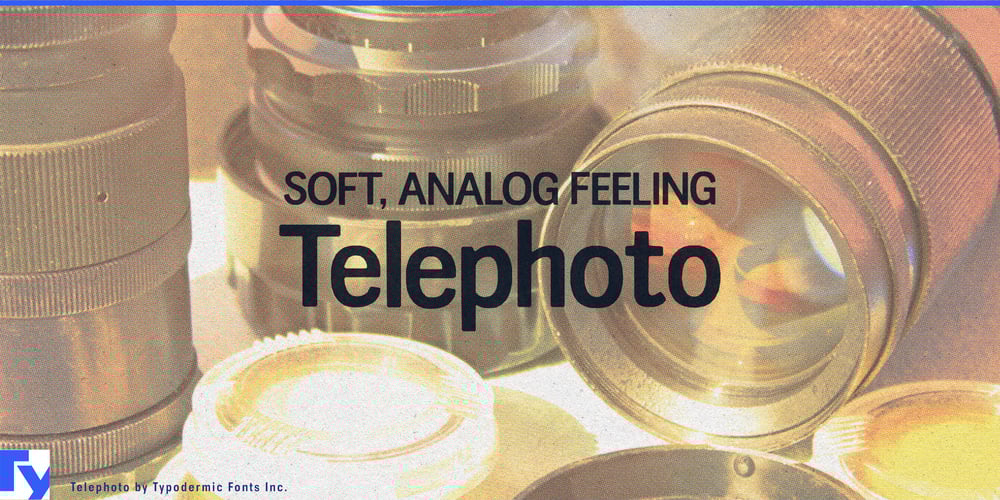
Telephoto Font Family was designed by Ray Larabie and published by Typodermic. Telephoto contains 1 styles and family package options. Capture the essence of bygone eras with Telephoto—a sans-serif typeface that develops your designs with the warmth and character of analog charm. This is a time machine for your typography, transporting your projects back to when craftsmanship was king and every letter told a story.Telephoto’s gentle curves and smooth personality evoke the classic ambiance of 20th-century design, bringing a touch of nostalgia to your modern creations. It’s like finding a perfectly preserved vintage camera at a flea market—full of history, yet ready to capture new moments with timeless style. What truly sets Telephoto apart is its masterful use of subtle letter pair ligatures. These thoughtful connections between characters create a flowing, organic feel that’s rare in today’s digital landscape. It’s the typographic equivalent of a perfectly timed long exposure—capturing movement and continuity in a single frame. For the full effect, make sure to disable the “standard ligatures” function in OpenType-savvy programs and watch as Telephoto develops your text into a beautifully composed image.Telephoto isn’t just for photographers—it’s for any designer looking to add depth and soul to their work. From editorial layouts to branding projects, this typeface brings a soft focus to sharp ideas. Its delicate rendering stands out in a world of harsh pixels, adding a layer of sophistication that speaks volumes without saying a word. With support for a vast array of Latin-based European languages, Telephoto is ready to tell your story across borders and cultures. It’s a typeface that understands the power of universal design language, much like how a great photograph needs no translation.Don’t let your typography fade into the background. Download Telephoto today and give your designs the exposure they deserve. It’s time to develop your creative vision with a typeface that truly focuses on the details.